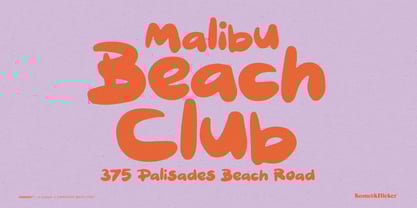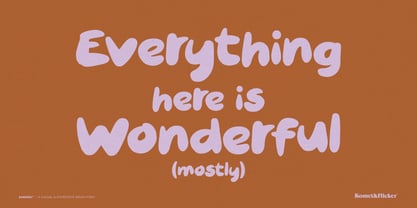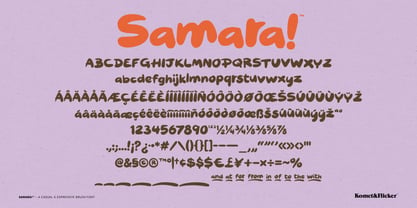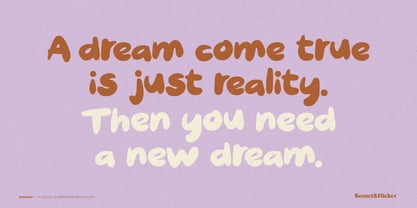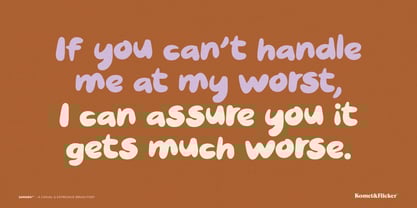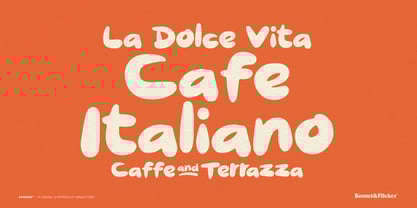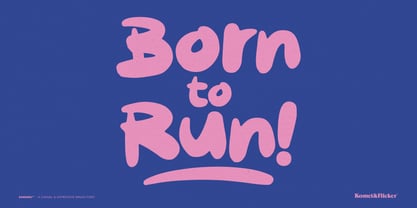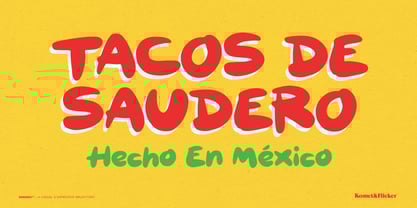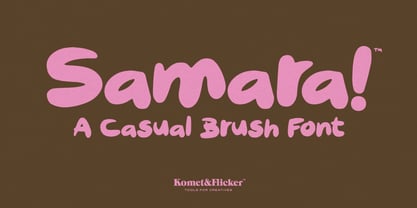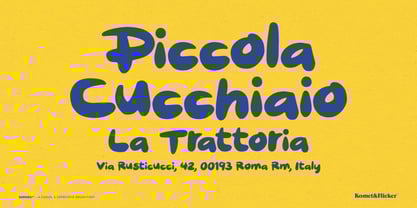
Samara
Meet Samara, a hand-drawn brush script font that brings a burst of personality to your designs. With its loose strokes, casual flow, and playful attitude, Samara is perfect for projects that need a touch of charm and a hint of spontaneity.
Samara adds an organic, human feeling to every word. It’s full of movement and character, making even simple text feel expressive and engaging.
THIS FONT FEATURES
Hand-Drawn Style: Each glyph is rendered in free-flowing brush strokes for a natural, authentic appearance.
Multilingual Support: Speak to a global audience with full multilingual character support, ensuring your designs are versatile and accessible.
Nine Custom Connecting Words: Included in the font is a unique set of nine hand-crafted connecting words (e.g., “and”, “from”, “with”, etc.) that give your text a seamless, flowing look.
THIS FONT INCLUDES
• Full A-Z upper and lowercase basic latin characters
• Select European specific characters
• Numbers, punctuation, and select symbols
• Pre-made common fractions
• Set of nine custom connecting word glyphs
• Set of six underline strokes